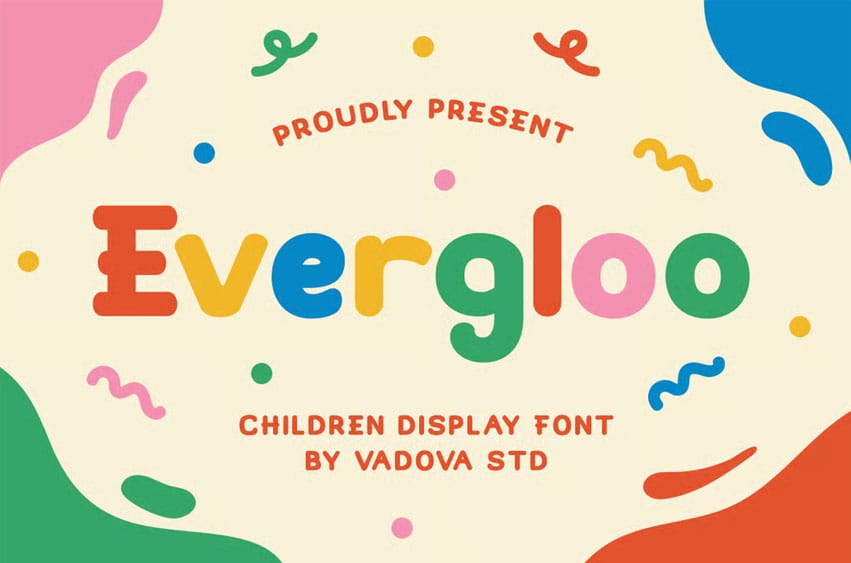
Evergloo Font Children’s Display Font is a bold, playful typeface with soft, rounded edges and bouncy letterforms, designed for readability in both print and digital formats. It is ideal for toy packaging, kids’ games, storybooks, learning materials, birthday invitations, play cards, children’s t-shirts, classroom posters, educational games, YouTube thumbnails, daycare branding, sweet shop signage, stickers, coloring books, puzzles, kindergarten banners, and e-learning platforms.
Use Case toy packaging, children’s books, kindergarten posters, party invitations, food branding (donuts, candy, ice cream), educational games, kids apparel, YouTube thumbnails for kids, classroom signs